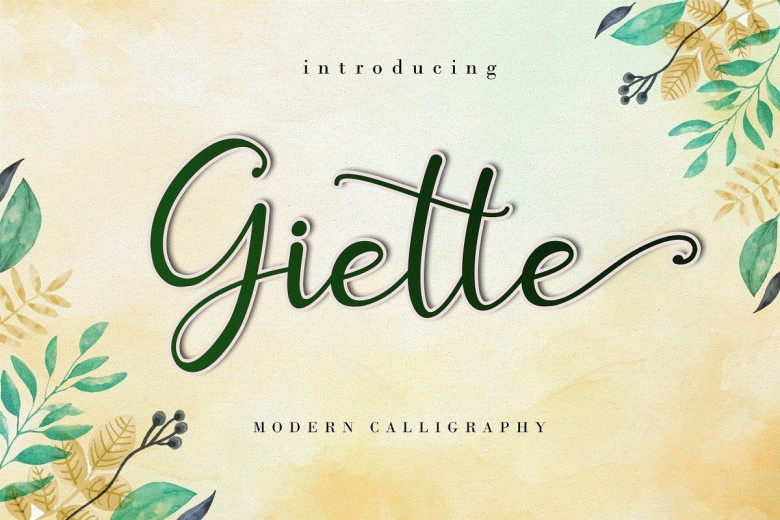
Giette Calligraphy Script Font
Introducing the Giette Calligraphy Script Font is a beautiful and sweet script that will turn any design project into a true piece of art. This font also supports multilingual, number and symbol, and many ligatures. Also this font is PUA Encoded.